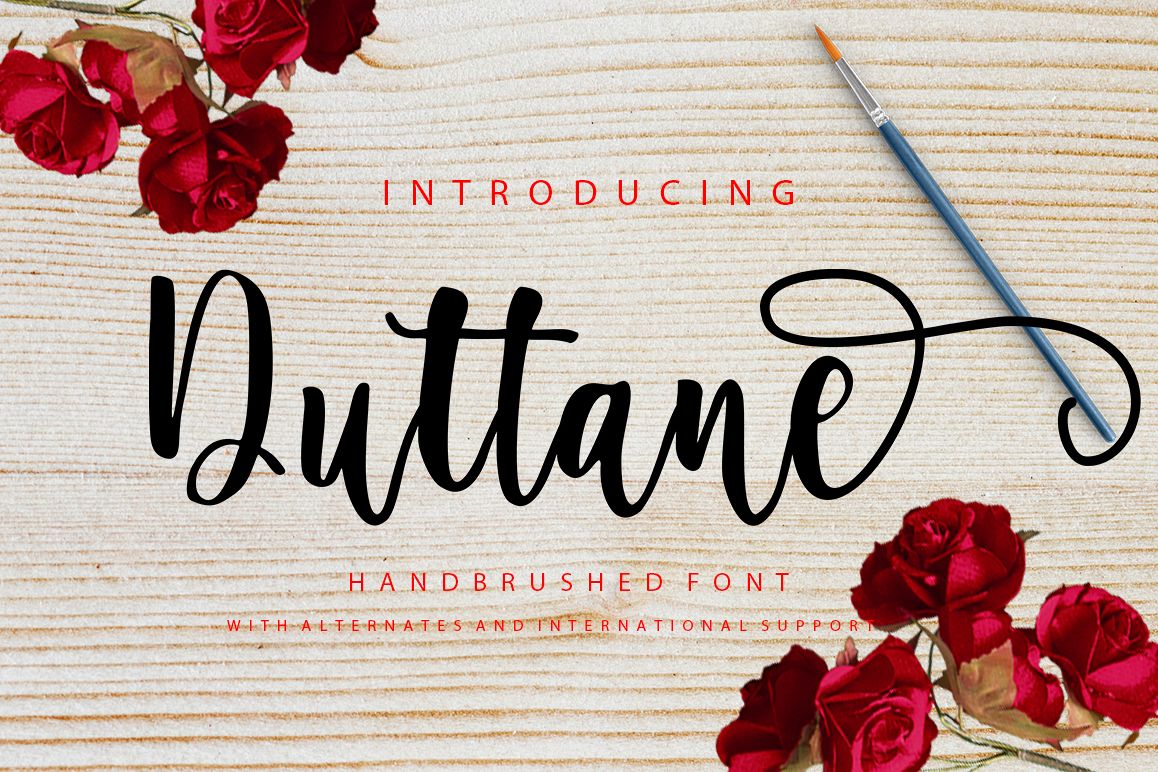
Duttane Script is a new modern script font with an irregular baseline. Trendy and feminine style. Duttane looks lovely on wedding invitations, thank you cards, quotes, greeting cards, logos, business cards and more. Perfect for using in ink or watercolour. Including initial and terminal letters, alternates, ligatures and multiple language support.